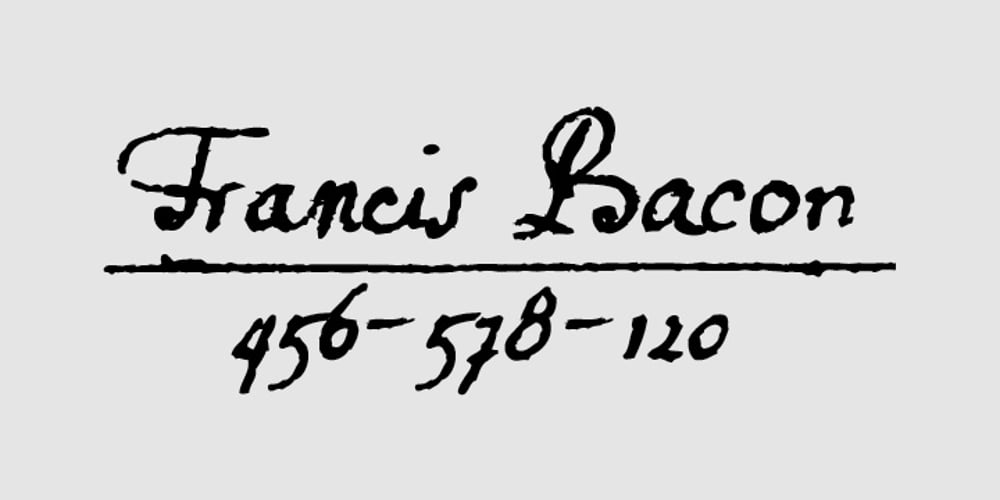
Lectores Font Family was designed by published by Cuda Wianki. Lectores contains 1 styles and family package options. Lectores is based on 18th century chronicles of Benedictine monastery manuscript, so it is definitely oldish, rough but elegant. Thanks to many ligatures and alternate characters it is varied handwriting font. Lectores is decorative, it works nice with many occasional papers such as invitations, stationery and quotations. It is perfect not only for oldstyle and antique typography but also for modern designs.